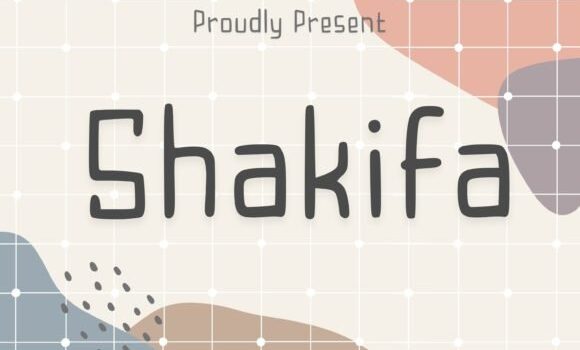
shakifa
Shakifa Font – Free Download Introduction to Shakifa Font Shakifa is a playful and friendly display font. 📸 Preview Gallery 5 images 📌 Product Name Shakifa Font 👤 Author nuraisyahamalia1729 📂 Category Explore ⬇️ Download Shakifa Font FREE Free Download